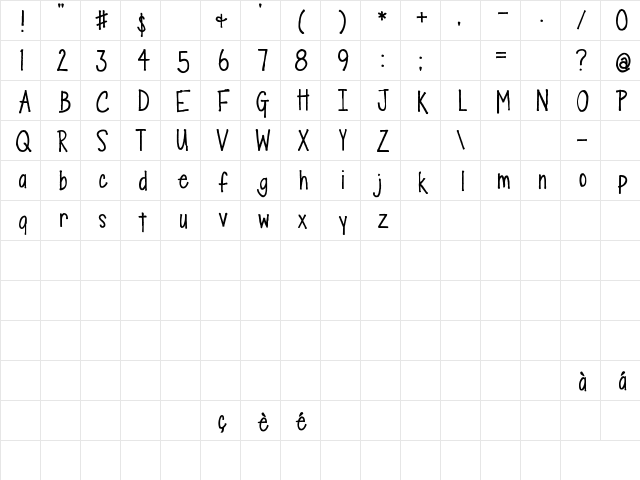
2Peas Pure Imagination 2Peas Pure Imagination Font Preview
2Peas Pure Imagination 2Peas Pure Imagination
2Peas Pure Imagination 2Peas Pure Imagination Font Details
| Style | 2Peas Pure Imagination |
| Foundry | High-Logic |
| Designer | High-Logic - Erwin Denissen 1999 |
Design Context for 2Peas Pure Imagination Typeface
2Peas Pure Imagination takes a measured approach to typography — its balanced proportions and neutral character make it a reliable workhorse for both digital and print work.